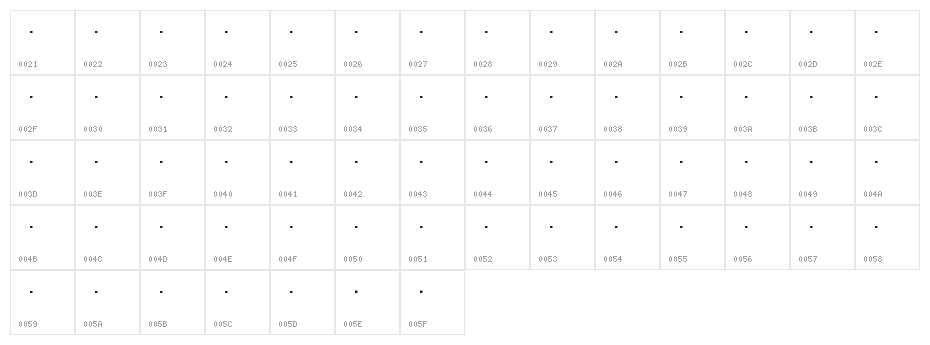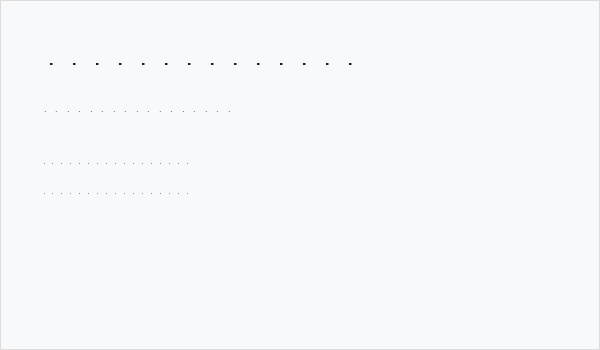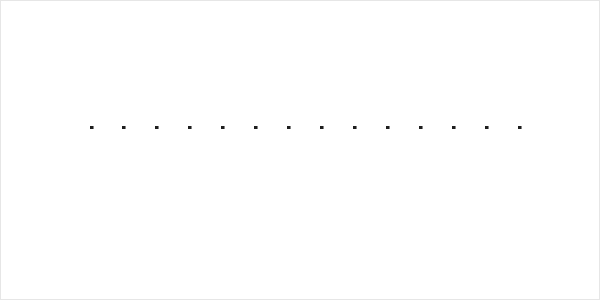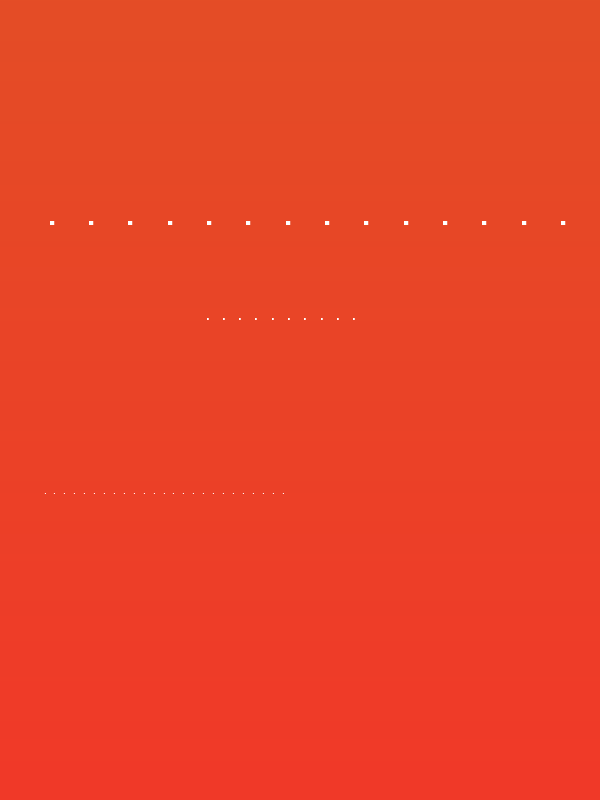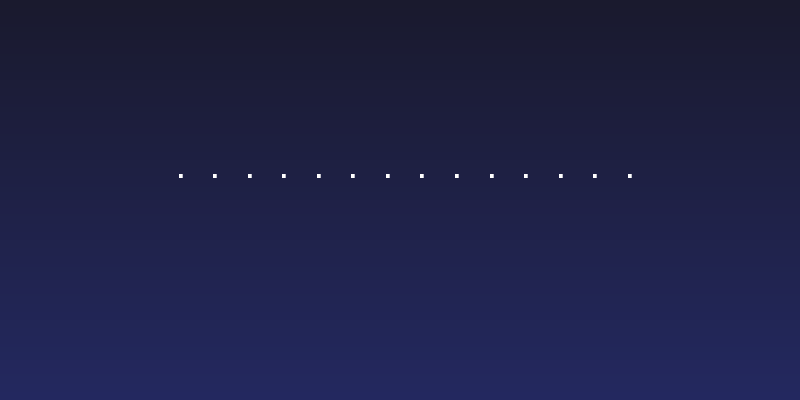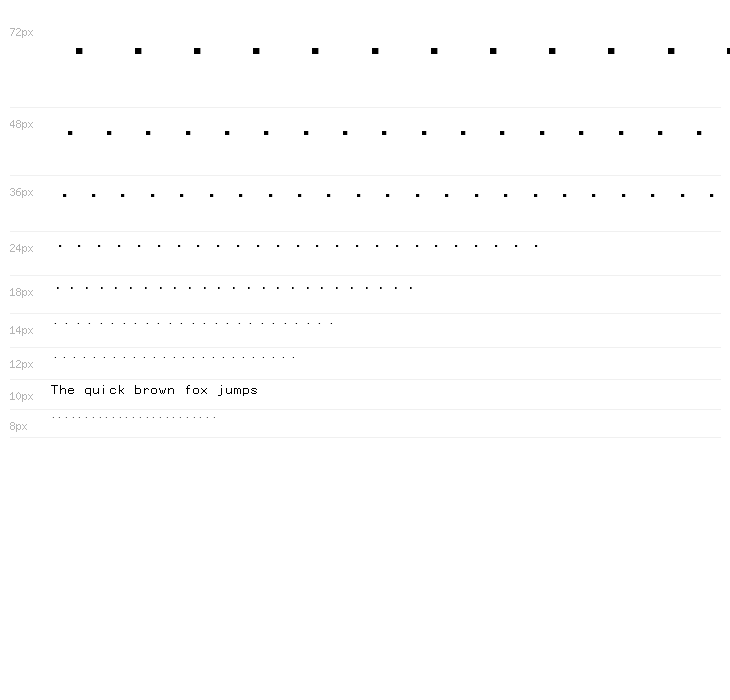
Triskweline 10 Font
Triskweline 10 Description
A monospaced font where each character is represented by a small, solid square dot, creating a minimalist and highly abstract appearance with no distinguishable letterforms.
| Overall Style | Minimalist, Experimental |
| Use Case | Art installations, digital displays, abstract design projects. |
| Proposed Projects | Digital art, experimental design, placeholder text, pixel-based displays. |